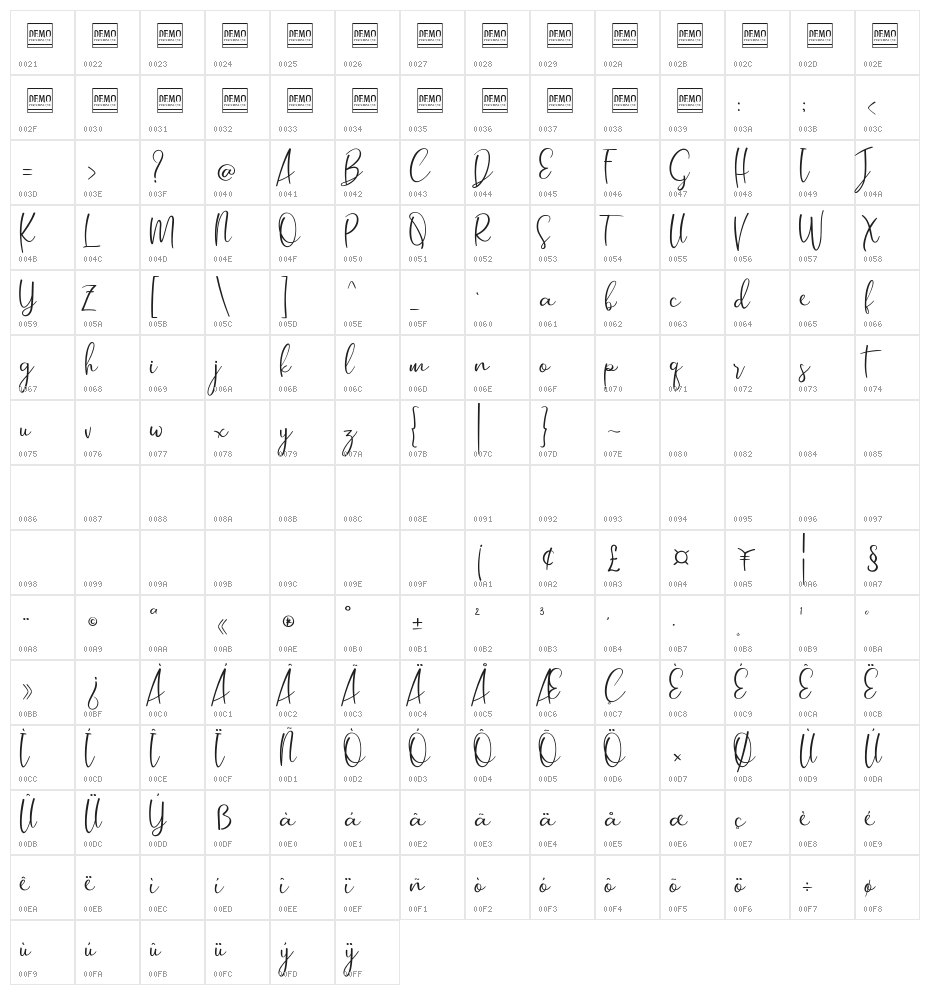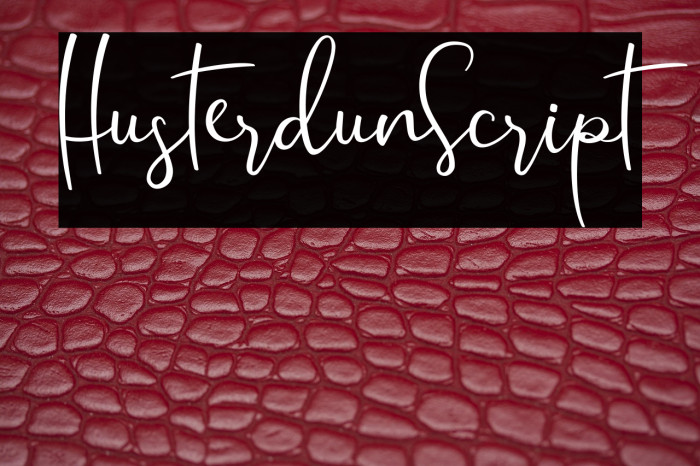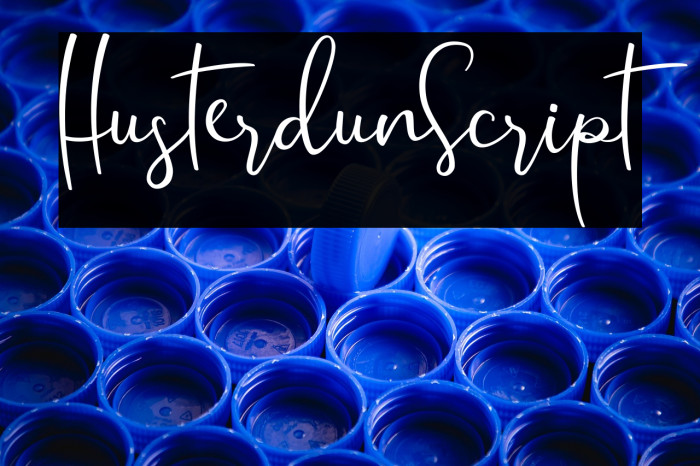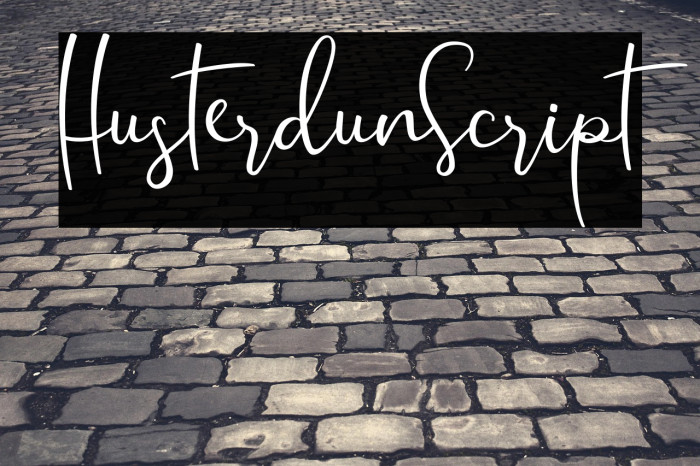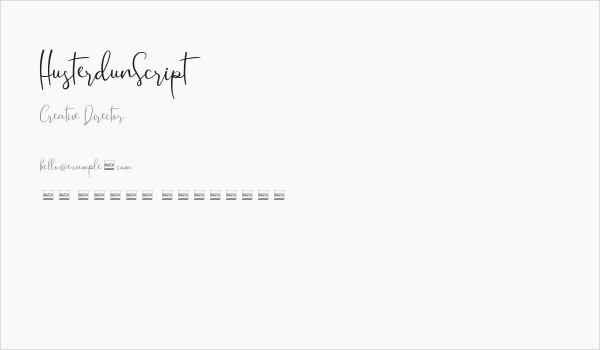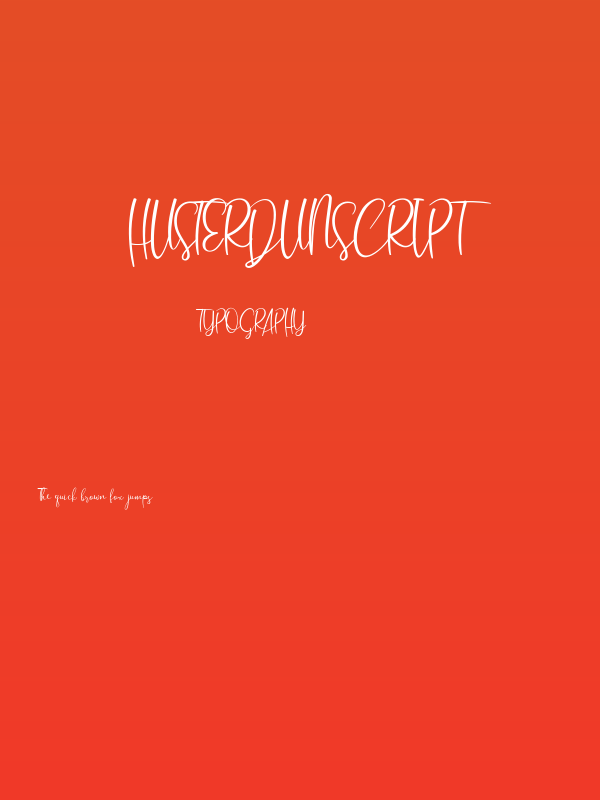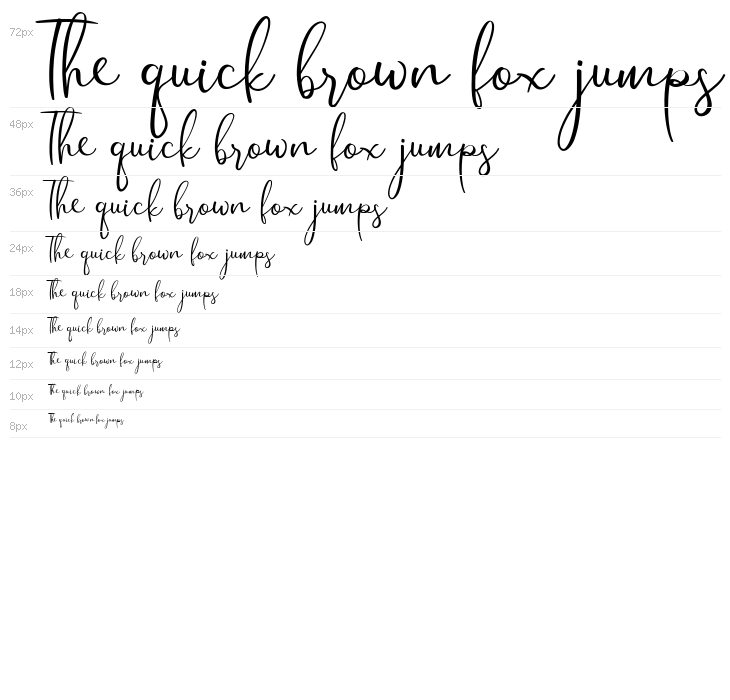
HusterdunScript Font
HusterdunScript Description
This font exudes a lively and dynamic character with its flowing script style. The uppercase letters are tall and slender, featuring elegant loops and curves that give a sense of movement and fluidity. The lowercase letters maintain a consistent style, with smooth transitions and a slightly more compact form, enhancing readability while retaining a handwritten feel. The overall design is playful yet sophisticated, making it ideal for creative projects that require a personal touch. The font's unique style is perfect for capturing attention and adding a touch of elegance to any design.
| Use Case | Logos, Headlines, Invitations |
| Proposed Projects | Ideal for wedding invitations, greeting cards, branding, and social media graphics. |